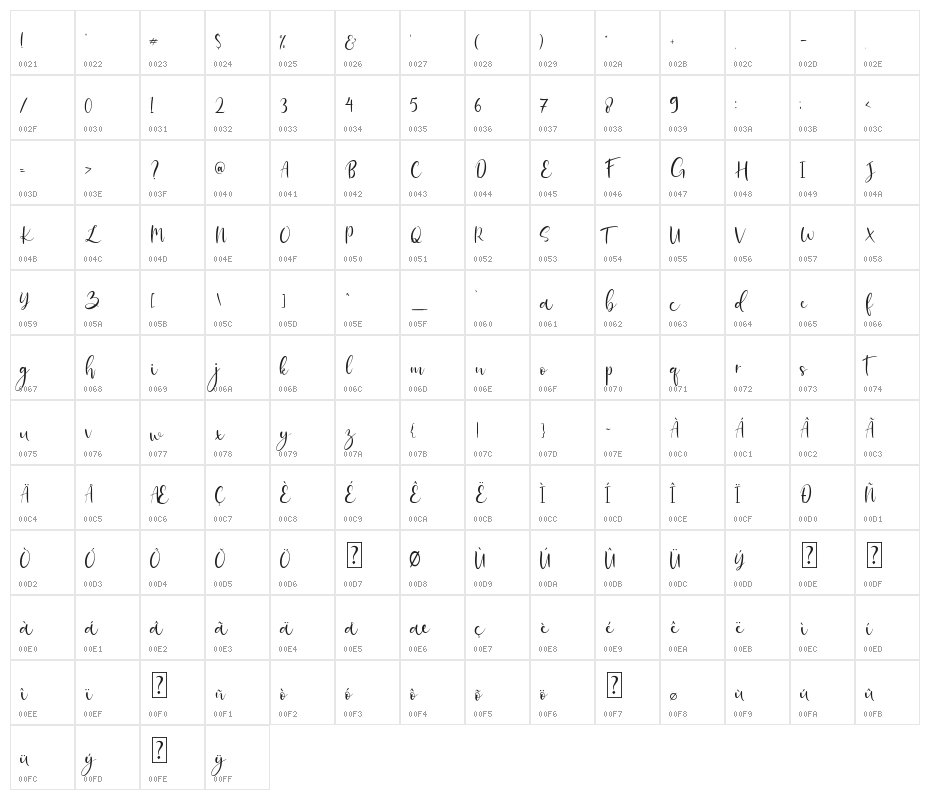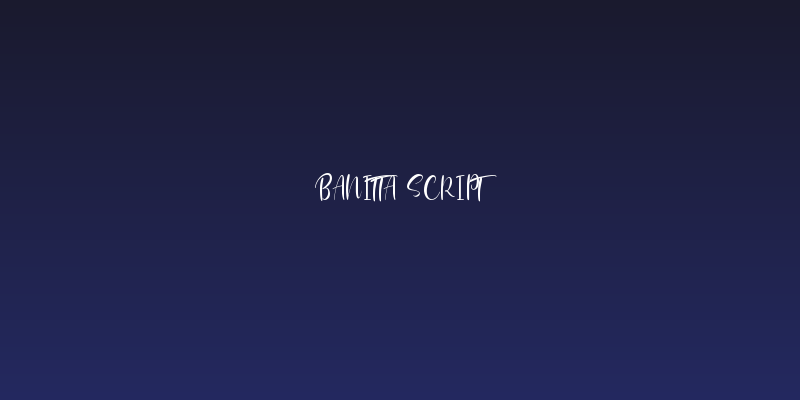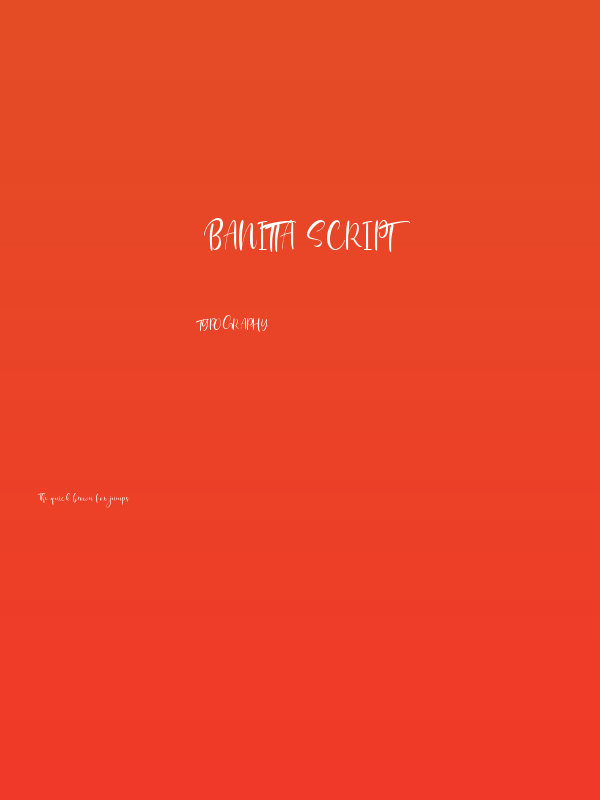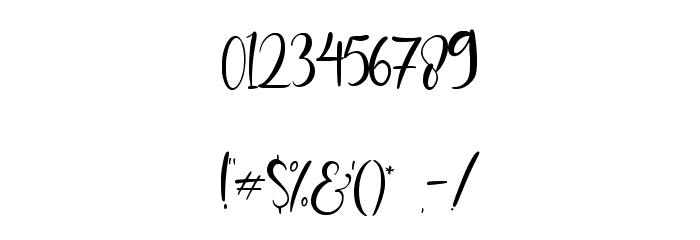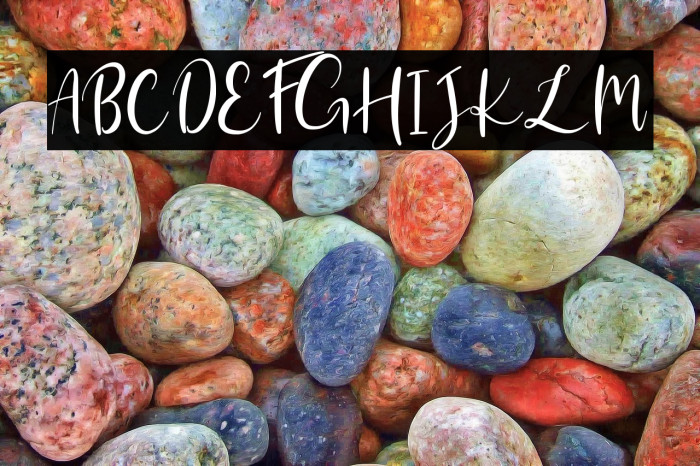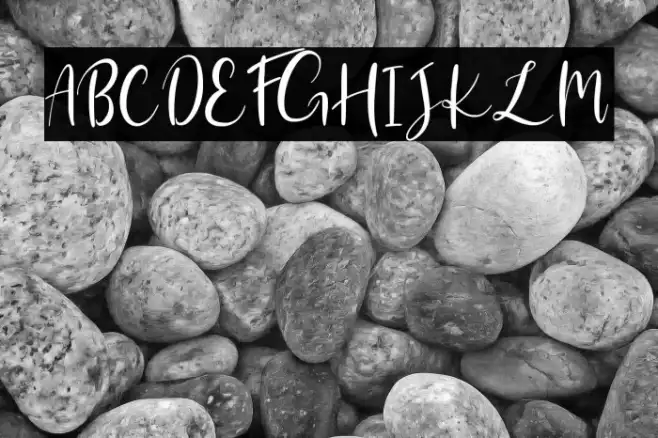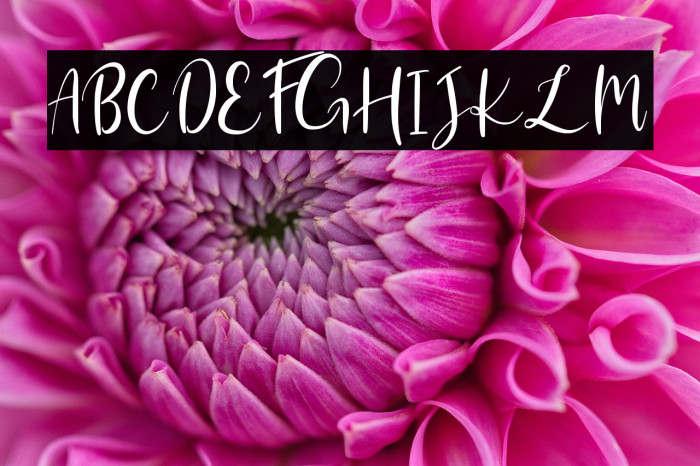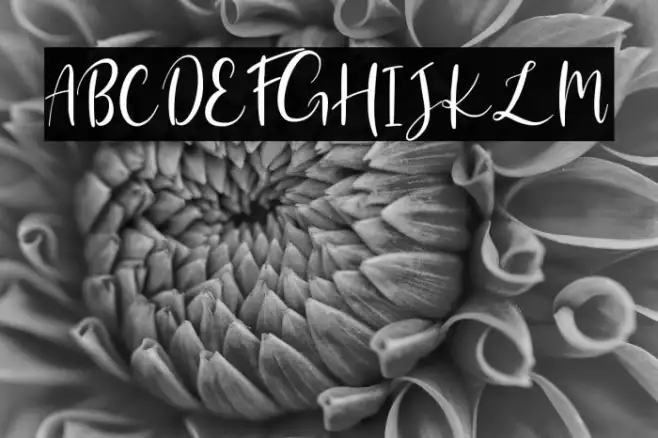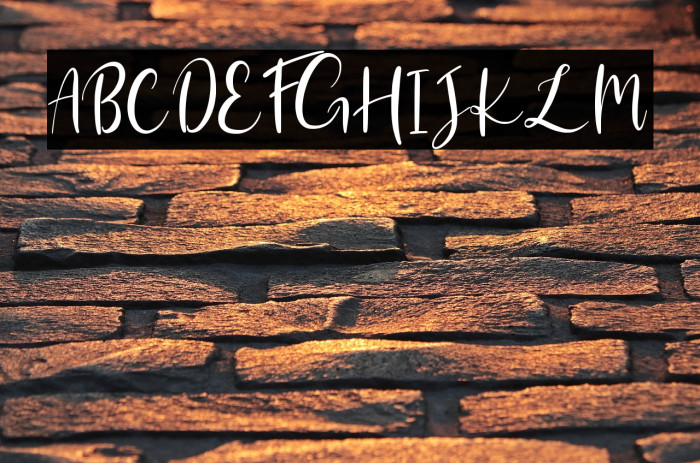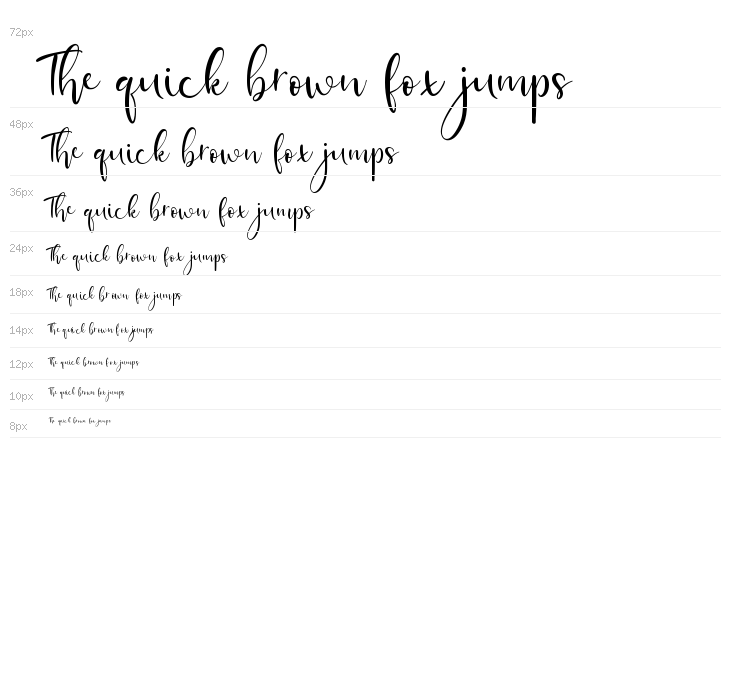
Banitta Script Font
Banitta Script Description
This font exudes a lively and elegant script style, characterized by its flowing, cursive letterforms. The uppercase letters are bold and expressive, with dramatic loops and flourishes that give a sense of movement and grace. The lowercase letters maintain a consistent fluidity, with a slightly more restrained design that complements the uppercase. The numerals are distinct and maintain the script's overall aesthetic, while the special characters are creatively integrated, adding to the font's versatility. This script font is perfect for projects that require a personal, handwritten touch, such as invitations, greeting cards, and branding materials.